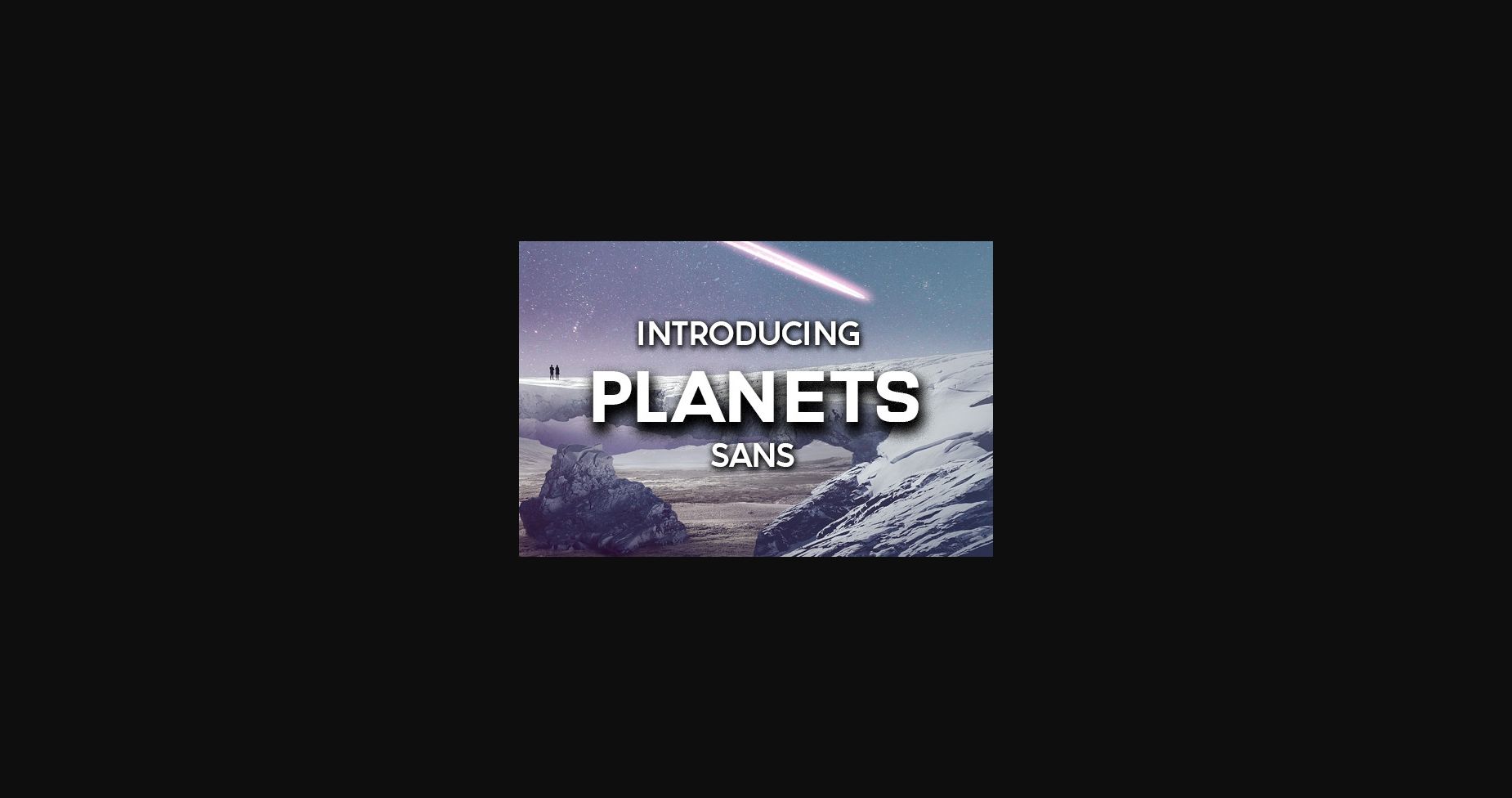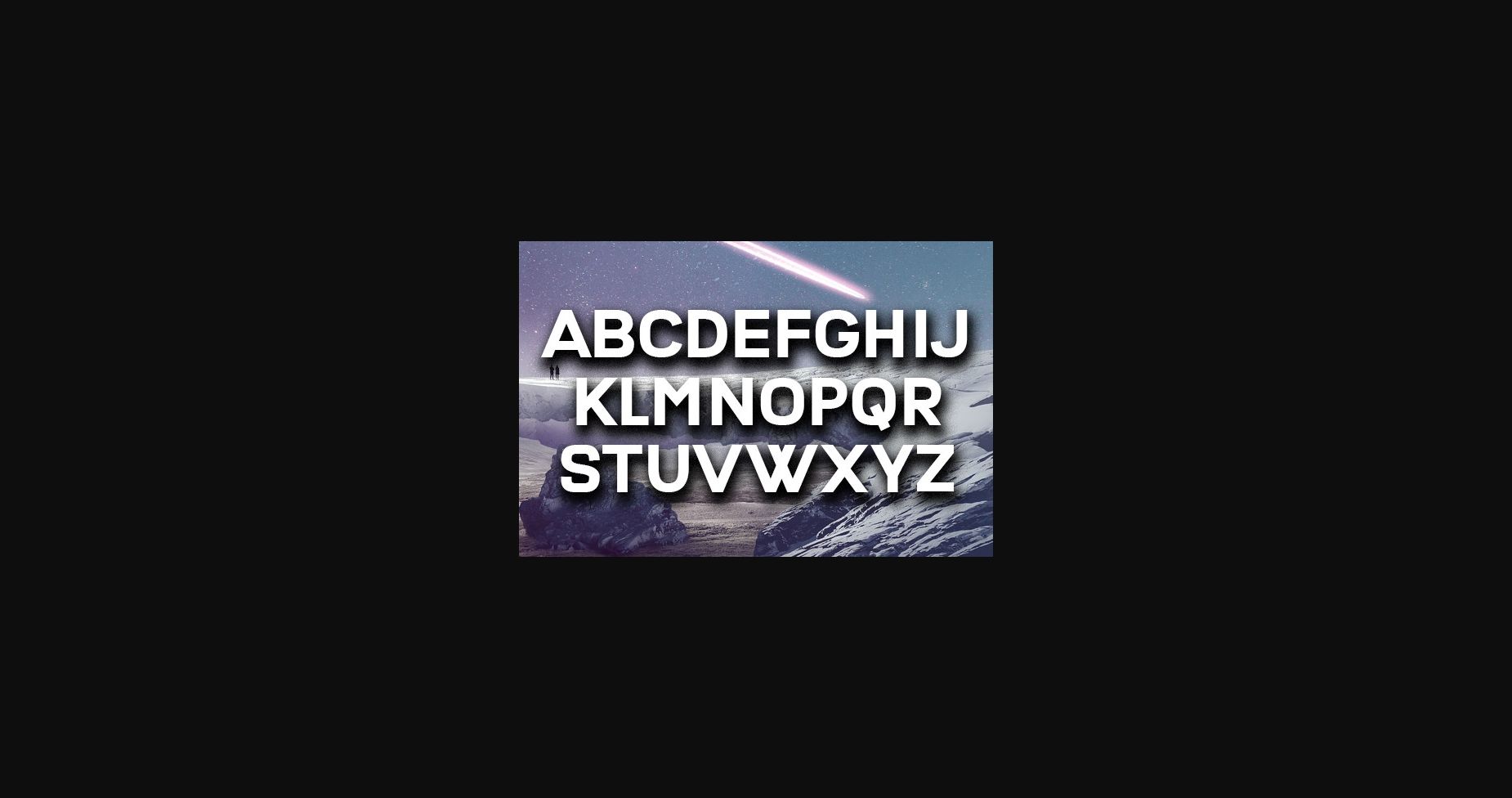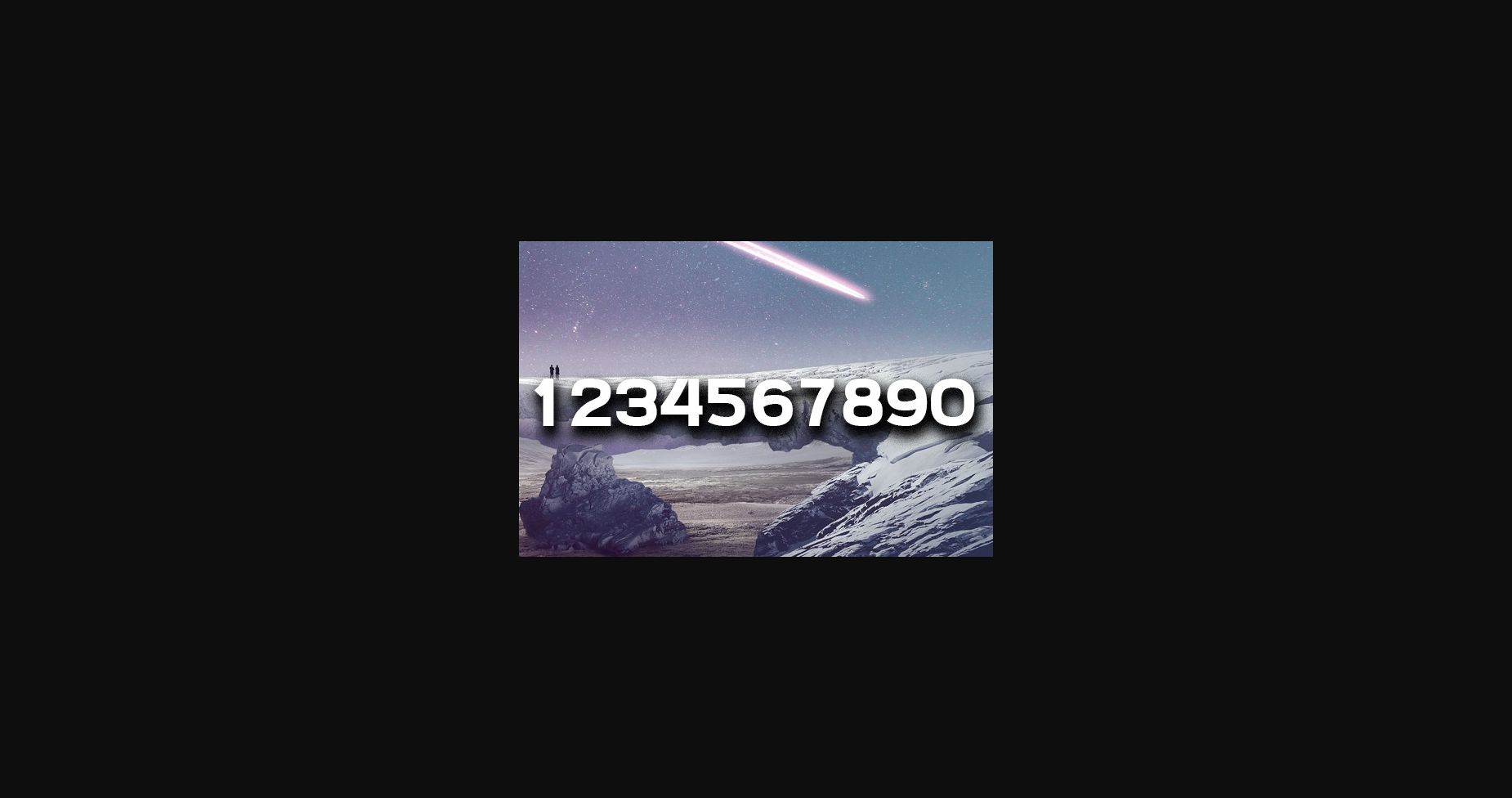
HomeSans Serif FontsPlanets Font Sans Serif Fonts Planets Font FacebookXPinterestWhatsApp 1 of 5 ... Planets Font Poster 2... Planets Font Poster 3... Planets Font Poster 4... Planets Font Poster 5... About Planets Font Planets is a stylish Sans Serif typeface that will make your designs shine. Use this font on flyers, posters, and t-shirts. DOWNLOAD NOW People also explored Choco Script Font Asphalt Bella Canvas 3001 Mockup T Shirt Reason Behind Font Domino Font Zincov Morinda Font Alisabela Brushley Font ManicSea Font Ketogenic Font 485 0 TagsPlanetsPlanets Font Previous articleCamello FontNext articlePezula Font LEAVE A REPLY Cancel reply Comment: Please enter your comment! Name:* Please enter your name here Email:* You have entered an incorrect email address! Please enter your email address here Website: Save my name, email, and website in this browser for the next time I comment. Personal Use Free Bettari Personal Use Free Read more about this font Mini Story Personal Use Free Read more about this font Quickline Personal Use Free Read more about this font Lumber Personal Use Free Read more about this font BLOG Modern Sans-Serif Fonts That Brands Love in 2025 In 2025, modern sans-serif fonts remain a top choice for brands looking to project clarity, professionalism, and... Best Fonts for T-Shirt Design – Top 2025 Picks Free Fonts Risk: Why Free Fonts Can Be Dangerous for Designers Fonts That Capture the Spirit of New York City